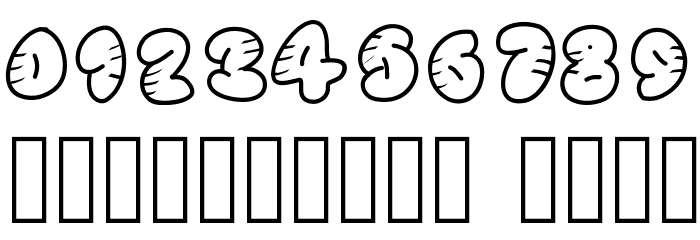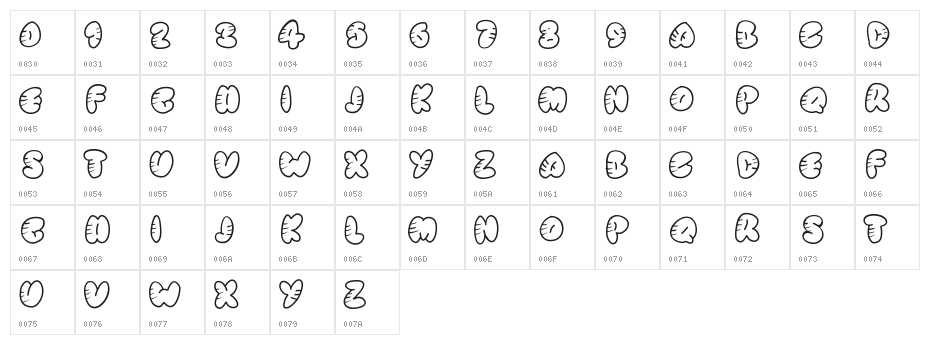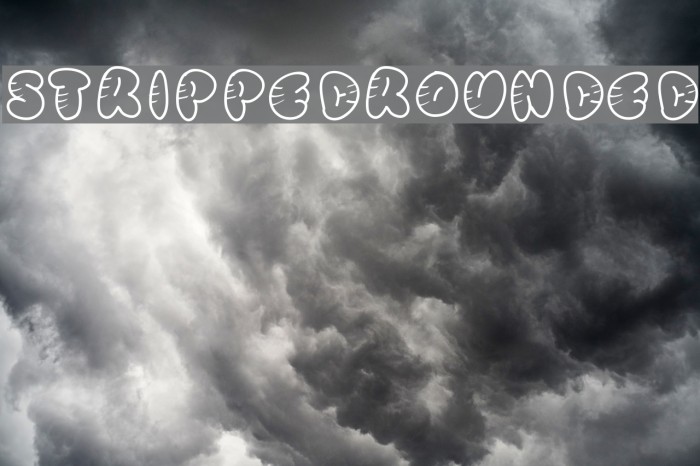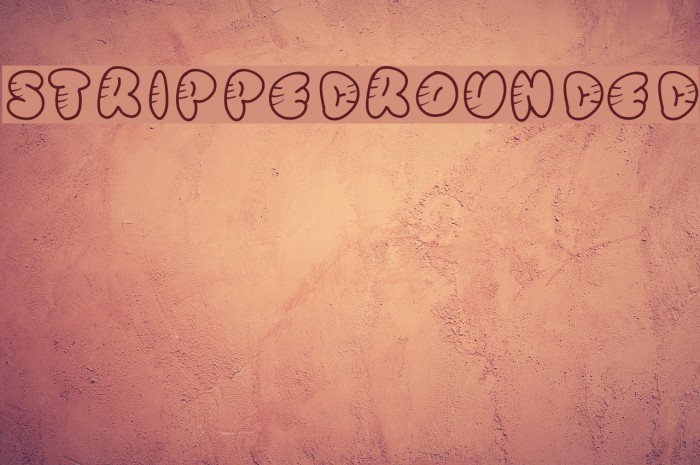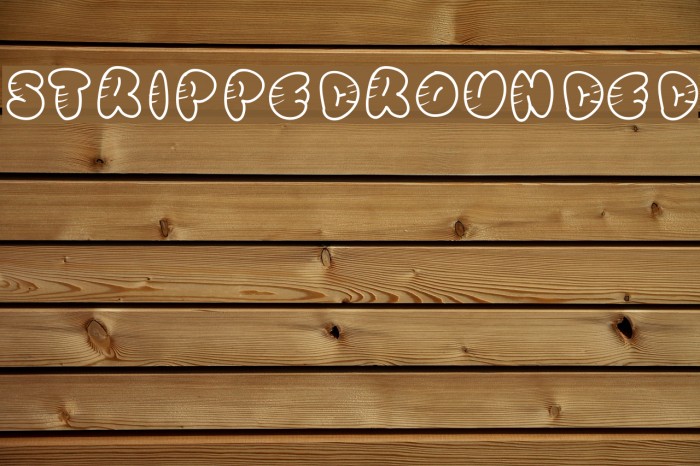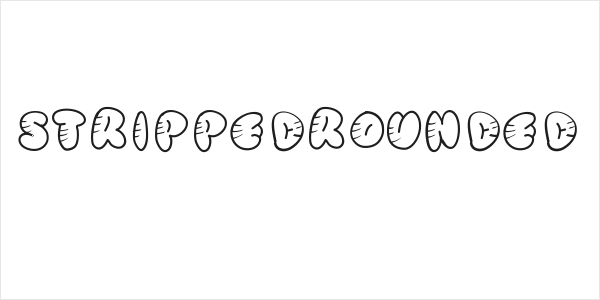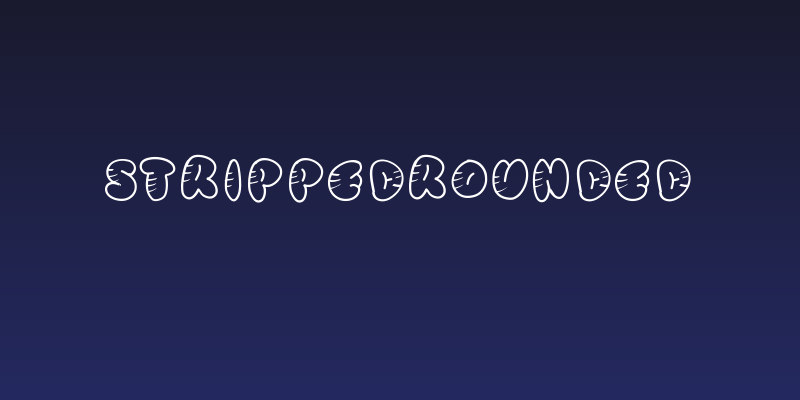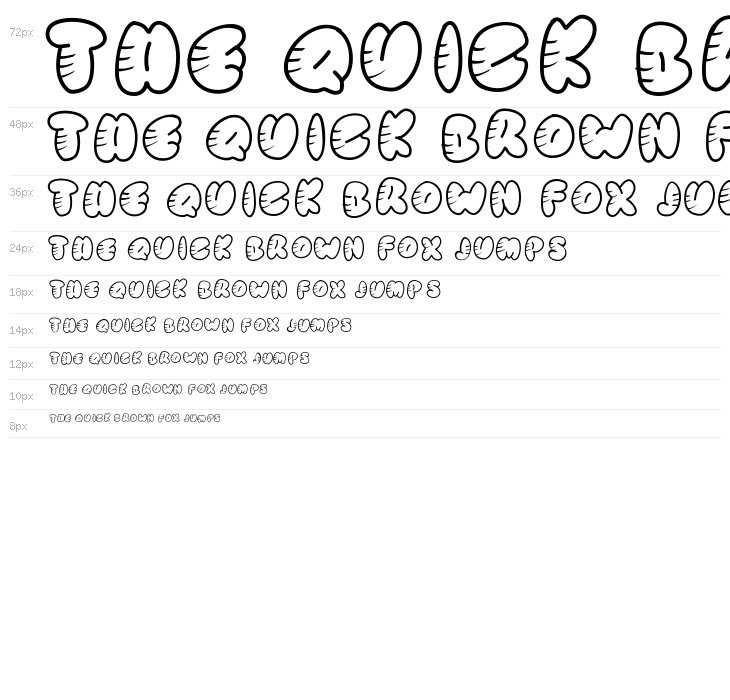
StrippedRounded Font
StrippedRounded Description
This playful and whimsical font features bold, rounded characters with a unique striped pattern inside each letter. The design is reminiscent of a cartoonish style, making it ideal for projects that require a fun and lighthearted touch. The letters are evenly spaced, maintaining a consistent and balanced appearance across both uppercase and lowercase alphabets. The numbers and special characters follow the same design principles, ensuring a cohesive look throughout. This font's distinctive style makes it stand out, perfect for creative and informal applications.
| Overall Style | Whimsical |
| Proposed Projects | Ideal for children's books, comic strips, playful branding, and party invitations. |